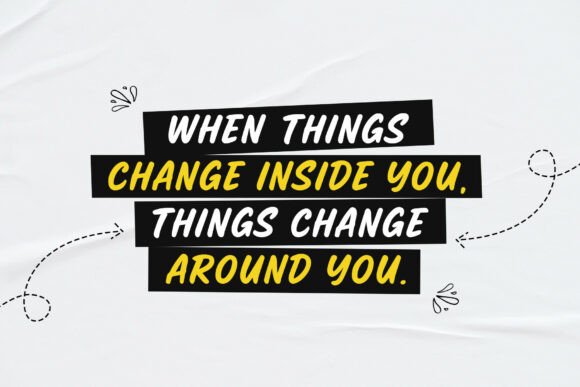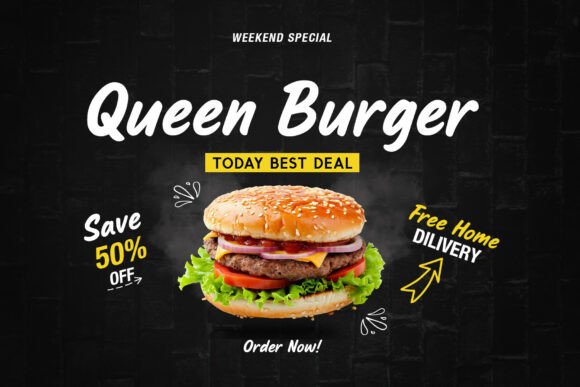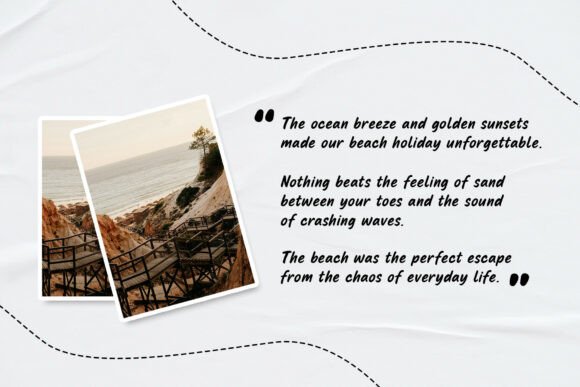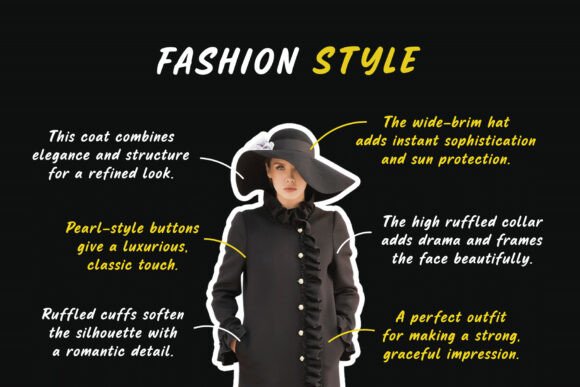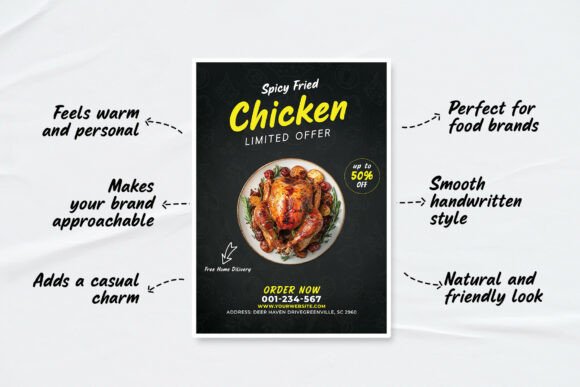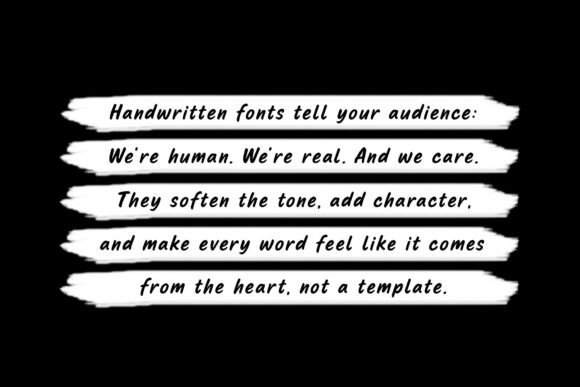
Introduction to Quick Board Font
Meet Quick Board, a casual handwritten font that brings a splash of spontaneity and warmth to your designs.
Inspired by quick notes, chalkboard scribbles, and everyday handwriting, this typeface captures the charm of imperfect strokes with a smooth, natural rhythm Whether youโre designing for lifestyle brands, food packaging, social media quotes, planner pages, or handwritten-style logos, Quick Board delivers that human touch that feels both personal and authentic.
Key Features of Quick Board Font
Why Choose Quick Board Font?
Quick Board Font offers exceptional quality and versatility, making it a valuable addition to your design toolkit. Whether you’re creating for personal projects or commercial use, Quick Board Font delivers professional results.